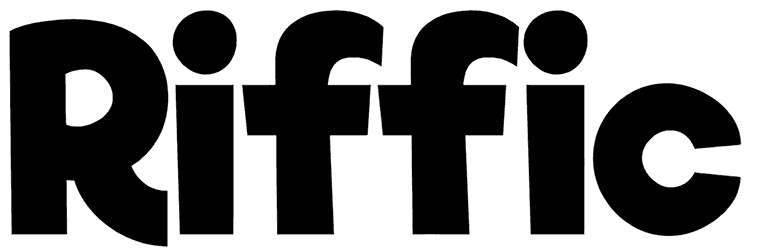
Riffic Font
Use this advice and your work won’t be the same. Use a sans serif font like Riffic for your typography to give it a trendy and bulky look. This font creates such a robust effect with bold and round letters.
Riffic Free Bold is part of a paid font family of seven faces, best utilised for where a sense of fun or adventure is needed. Works best big and bold as a display face but can also be used for general body text. Comes with support for Cyrillic and Greek languages and OpenType features such as alternates and fractional numbers.